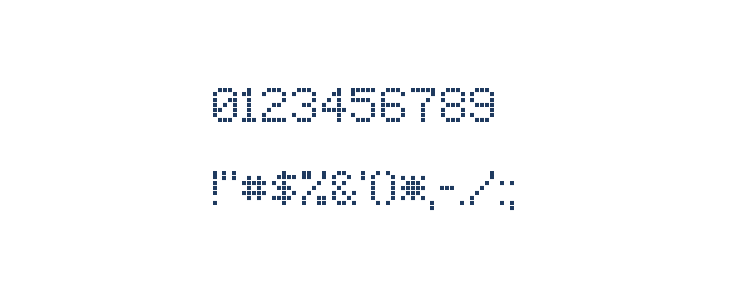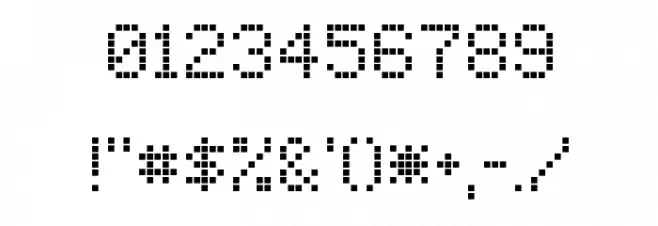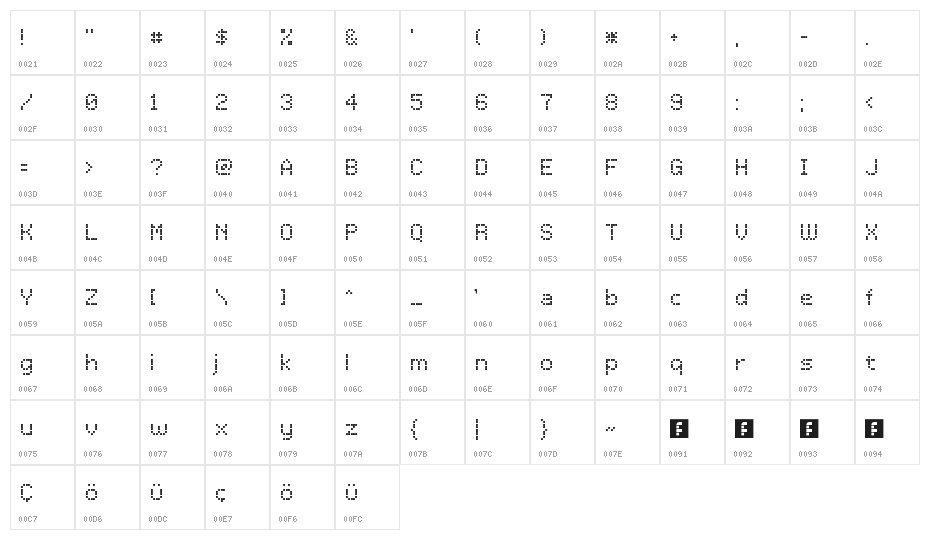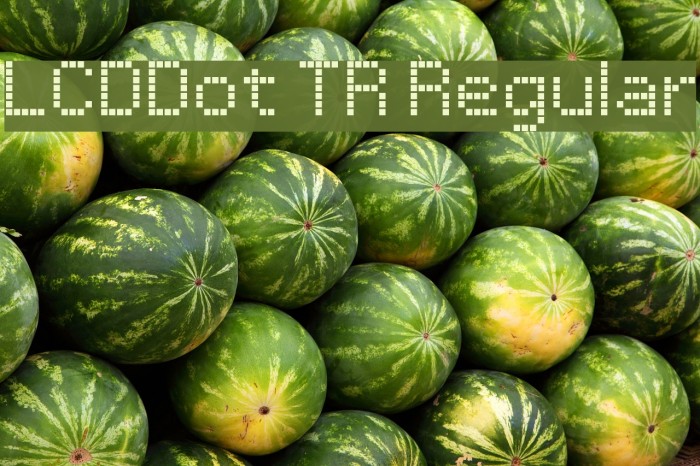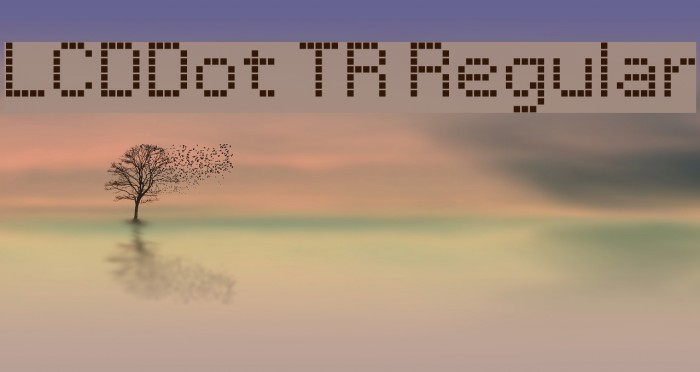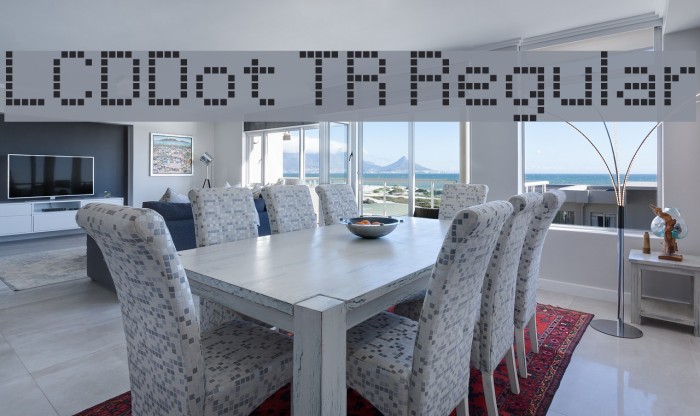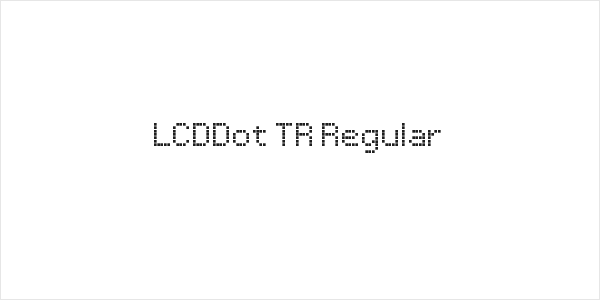
LCDDot TR Regular Font
LCDDot TR Regular Description
This font features a distinctive dot matrix design, reminiscent of old LCD displays. Each character is composed of a grid of small, evenly spaced dots, creating a retro digital aesthetic. The uppercase and lowercase letters, as well as numbers and special characters, maintain a uniform dot pattern, ensuring consistency across all glyphs. The style is geometric and structured, with a clear, legible appearance that evokes a sense of nostalgia for early digital technology.